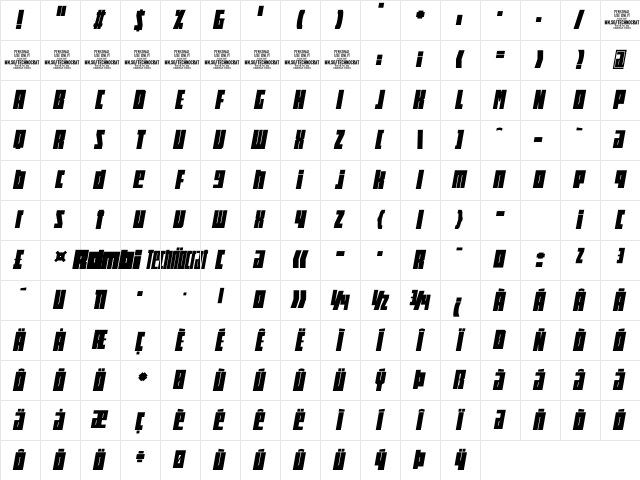
Rombi Technocrat PERSONAL Regular
Foundry: Mans Greback AB
Designer: Mans Greback
Design Context for Rombi Technocrat PERSONAL
Rombi Technocrat PERSONAL has a distinctly futuristic character, with geometric precision and clean angles that feel at home in technology, gaming, and sci-fi contexts.
Pro Tip: Try Rombi Technocrat PERSONAL with generous letter-spacing in UI labels and navigation - the geometric forms benefit from room to breathe.